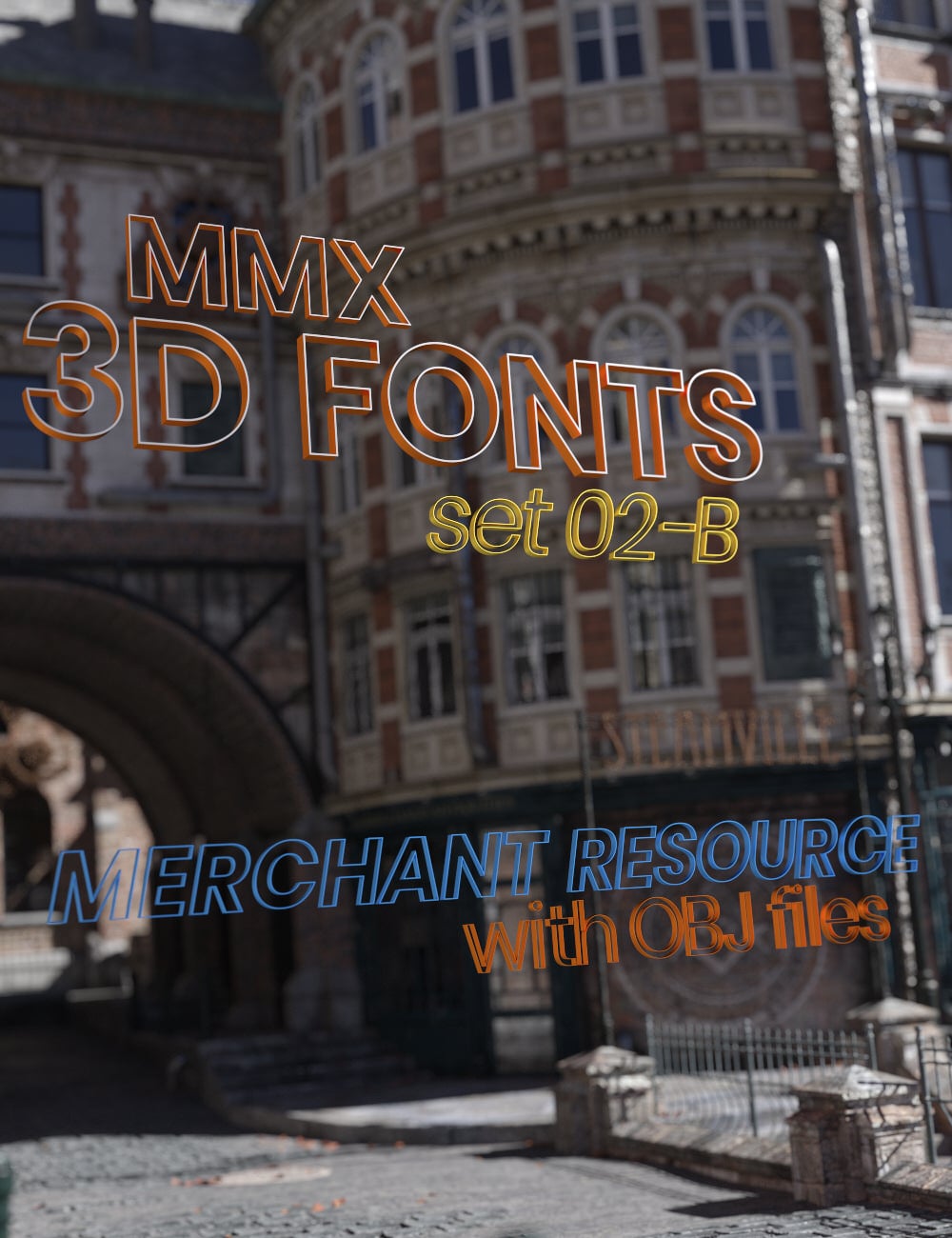
MMX 3D Fonts 02-B Merchant Resource
This is a set of 400 font props. The set is a hollow styled font, or 3D outline. It comes in 4 different font types, standard, bold, italic and bold italic. For each of those there are 26 upper case letters, 26 lower case letters, 10 numbers and 38 special characters. All props have 3 surfaces and the set includes 30 shader presets that can be applied to each surface separately within Daz Studio.